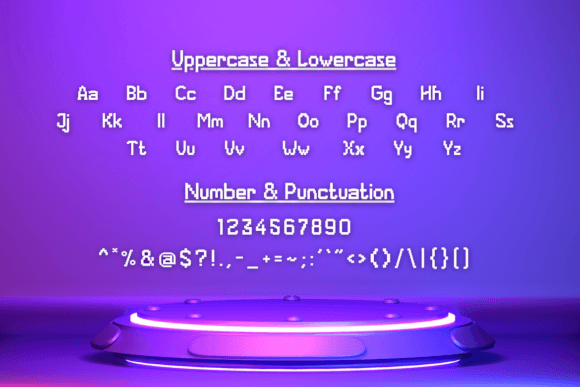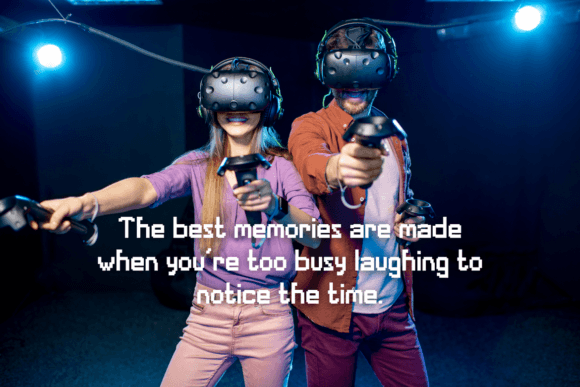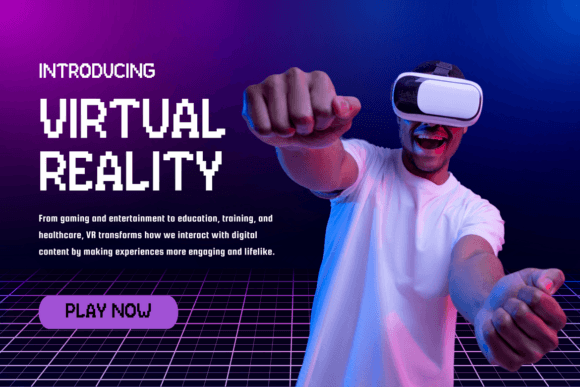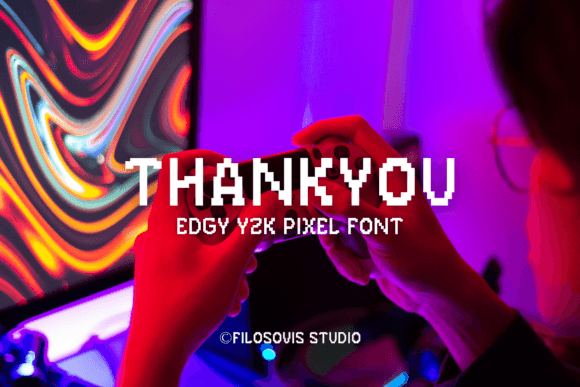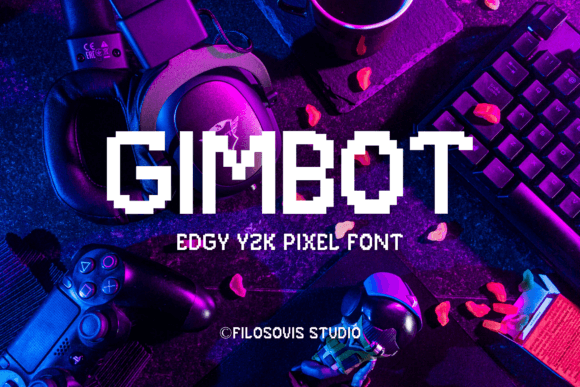
Gimbot Font: Elevate Your Designs with a Unique Touch
In the world of design, fonts play a crucial role in conveying the message and aesthetic of a project. Whether you’re creating an NFT, designing a poster, crafting a game, or simply looking for a unique touch, Gimbot fonts are here to enhance your value. Specifically designed to cater to the needs of designers and crafters, Gimbot fonts offer a range of styles that can add a distinctive flair to your work.
The Versatility of Gimbot Fonts
Gimbot fonts are not just limited to one style; they offer a variety of options that can suit different design needs. From old-style to NFT and unique vibes, these fonts are specially crafted to highlight your core idea. Whether you’re looking for something classic and traditional or modern and trendy, Gimbot fonts have got you covered. Their versatility makes them an ideal choice for various projects, including:
• NFT designs: Give your digital art a unique identity with Gimbot fonts.
• Pixel-style designs: Add a retro touch to your projects with Gimbot’s pixel-style fonts.
• Game designs: Enhance the gaming experience with fonts that are both fun and functional.
• Poster designs: Create eye-catching posters with Gimbot fonts that grab attention.
Why Choose Gimbot Fonts?
So, what makes Gimbot fonts stand out from the rest? Here are a few reasons why designers and crafters prefer Gimbot fonts:
• Unique Style: Gimbot fonts offer a distinctive style that can set your project apart from others.
• High Readability: Despite their unique style, Gimbot fonts are highly readable, making them perfect for both headings and body text.
• Customization: With Gimbot fonts, you can easily add your style and headline summary, giving your project a personal touch.
• Variety: From old-style to modern and unique vibes, Gimbot fonts offer a range of options to choose from.
Exploring Gimbot Font Styles
Gimbot fonts come in various styles, each designed to cater to specific design needs. Some of the popular styles include:
• Old Style: Perfect for traditional and classic designs, Gimbot’s old-style fonts are timeless and elegant.
• NFT Style: Designed specifically for NFT designs, these fonts offer a modern and trendy vibe.
• Pixel Style: Add a retro touch to your designs with Gimbot’s pixel-style fonts.
• Unique Vibes: For those looking for something truly distinctive, Gimbot’s unique vibes fonts are the perfect choice.
Tips for Using Gimbot Fonts
To get the most out of Gimbot fonts, here are a few tips:
• Experiment with Different Styles: Don’t be afraid to try out different Gimbot font styles to find the one that best suits your project.
• Mix and Match: Combine Gimbot fonts with other fonts to create a unique and visually appealing design.
• Pay Attention to Readability: While Gimbot fonts are designed to be readable, make sure to choose a font that is clear and easy to read.
In conclusion, Gimbot fonts are a great choice for designers and crafters looking to add a unique touch to their projects. With their versatility, readability, and range of styles, Gimbot fonts can elevate your designs and help you stand out from the crowd. Whether you’re creating an NFT, designing a poster, or crafting a game, Gimbot fonts are the perfect choice. So, why wait? Explore Gimbot fonts today and take your designs to the next level!